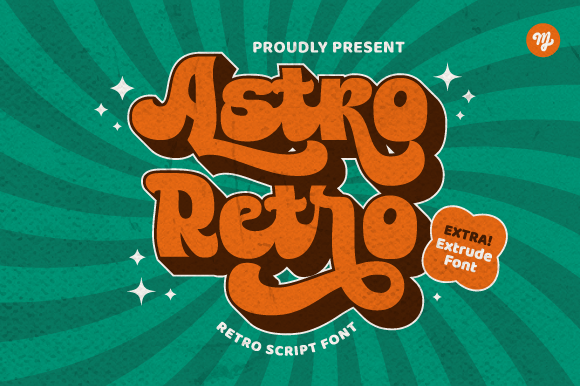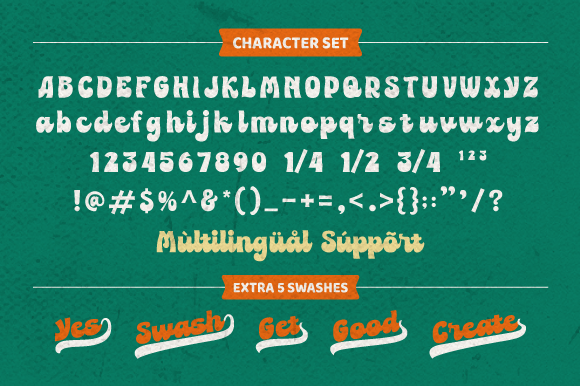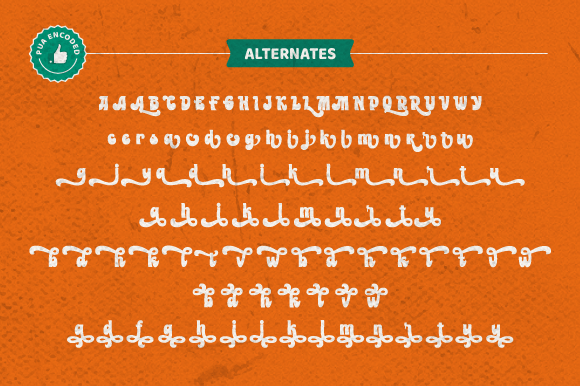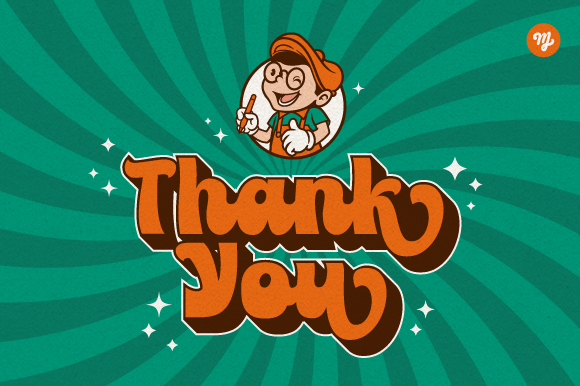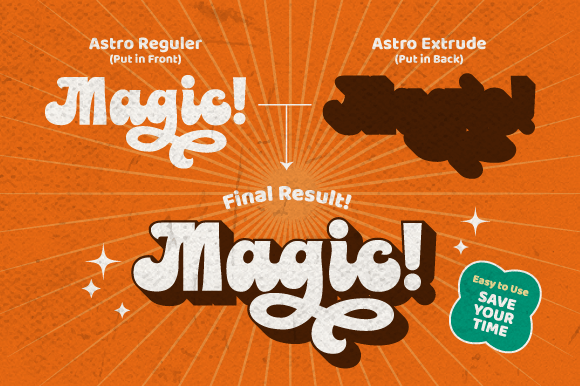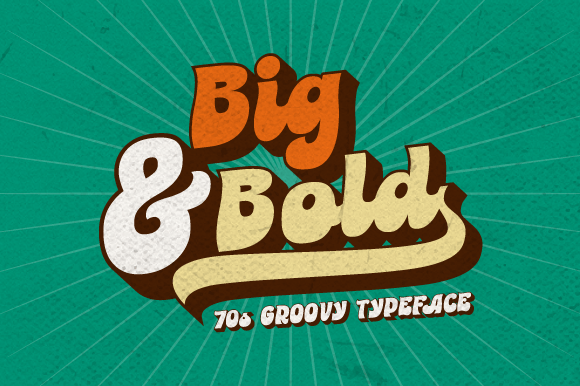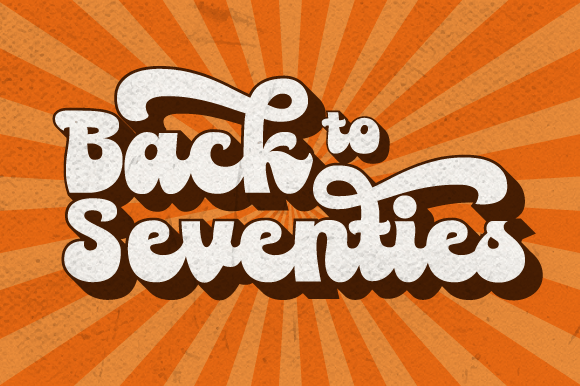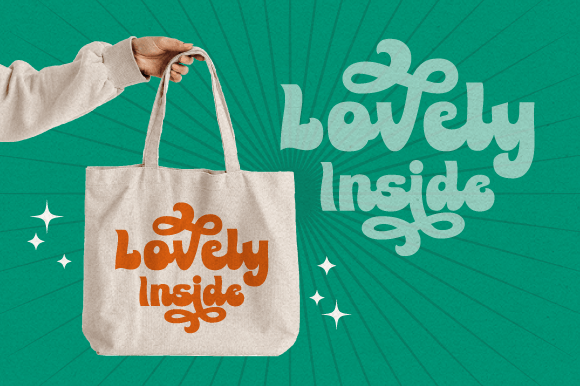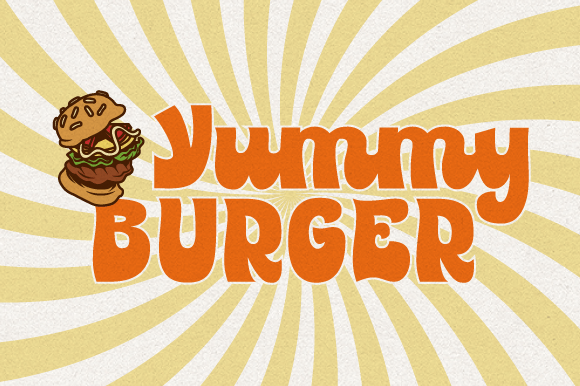
Astro Retro Font
About Astro Retro Font
“Astro Retro” is a bold script font that draws inspiration from the groovy lettering style of the 1970s. This font captures the essence of the retro era and is a versatile choice for a wide range of design projects. Notably, “Astro Retro” comes with an extruded font option, which simplifies the process of creating shadow effects, adding depth and dimension to your text.
The font’s bold and expressive characters evoke the spirit of the 70s, making it an excellent choice for designs that aim to capture the nostalgia of that era. From posters to branding, “Astro Retro” can infuse your projects with a touch of retro charm.
One standout feature of “Astro Retro” is its PUA encoding, which provides access to all glyphs and alternates. This feature empowers you to customize and tailor the font to your specific design needs, making it a flexible and user-friendly choice.
With “Astro Retro” in your font library, you have a versatile tool that can transport your designs back to the 70s while maintaining a contemporary appeal. It serves as a reminder of the timeless influence of retro aesthetics in design.
In summary, “Astro Retro” is a bold script font inspired by 70s lettering styles. Its extruded font option simplifies the creation of shadow effects, and its PUA encoding ensures accessibility to all glyphs and alternates. Whether you’re working on posters, branding, or any design that calls for a dash of retro flair, “Astro Retro” is there to evoke the nostalgia of a bygone era while remaining relevant in modern design.